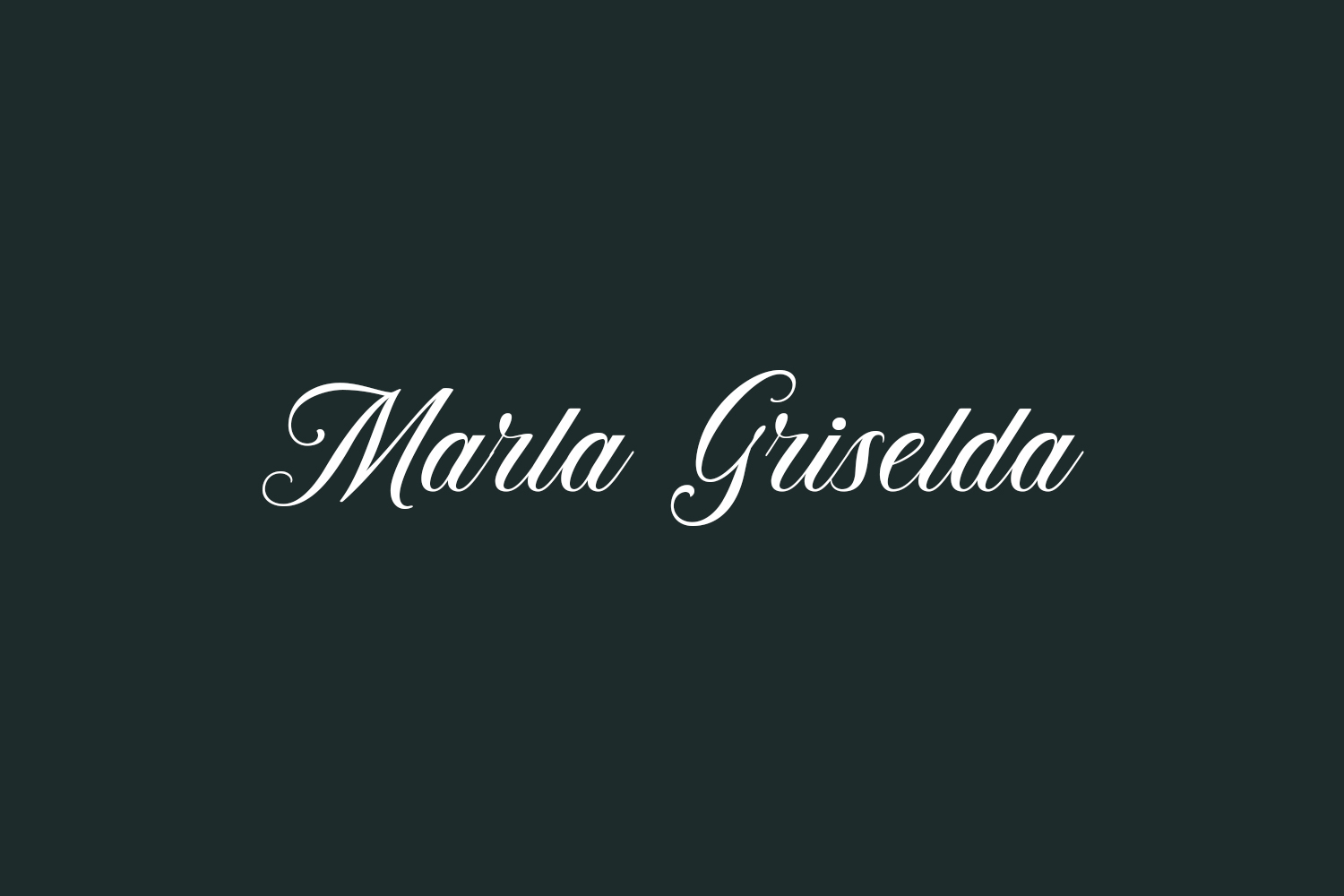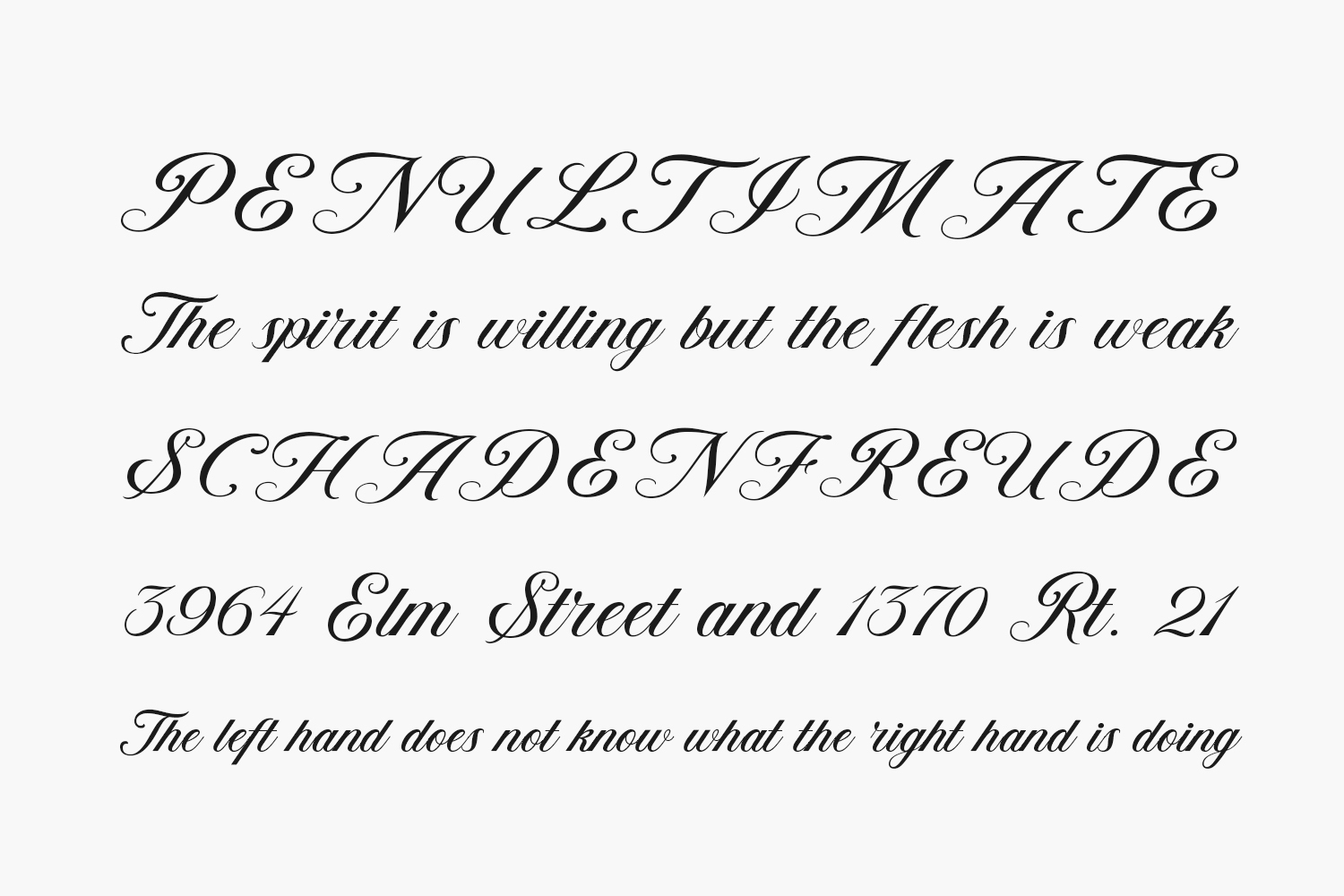
Marla Griselda Free Font is an elegant and sophisticated script typeface designed specifically for use in various applications such as logos, invitations, labels, magazines, books, greeting and wedding cards, packaging, fashion, make-up, stationery, novels, and other advertising-related projects. Incorporating this font into your designs will undoubtedly captivate the attention of your audience.
Designed by Letterhend Studio